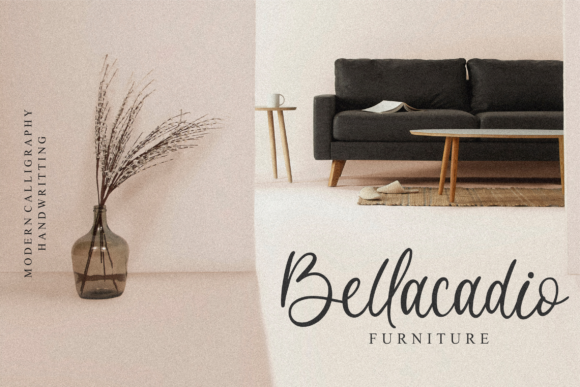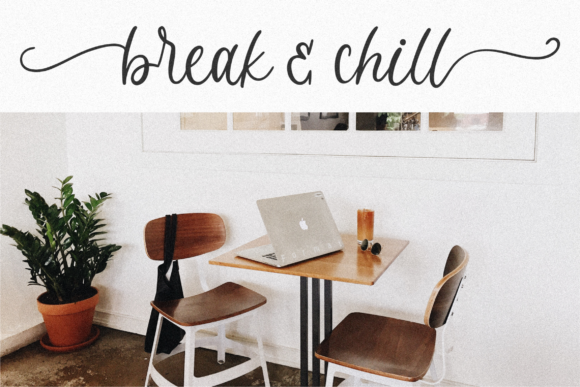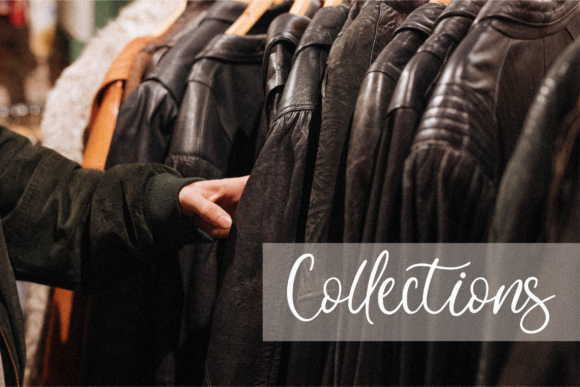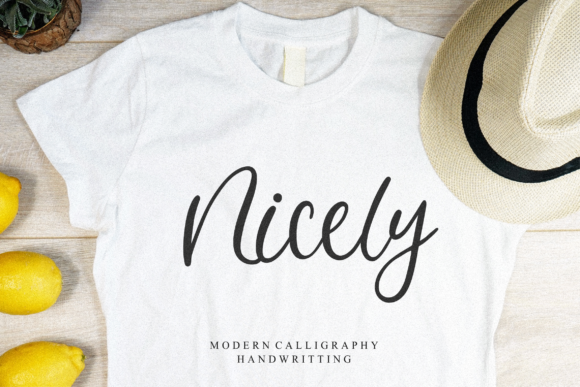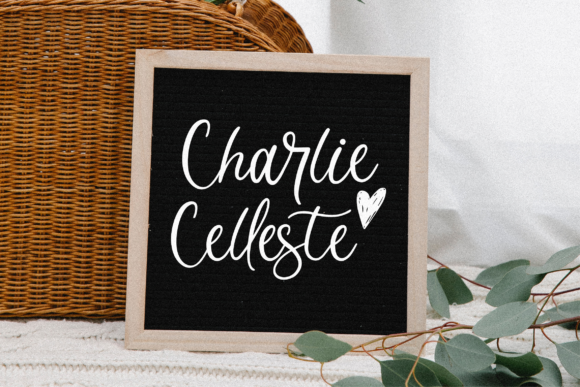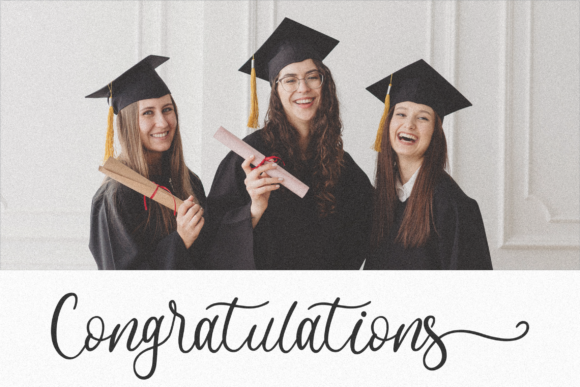
Farmstead Font
About Farmstead Font
Farmstead is an enchanting handwritten font. This font is PUA encoded which means you can access all of the glyphs and swashes with ease!